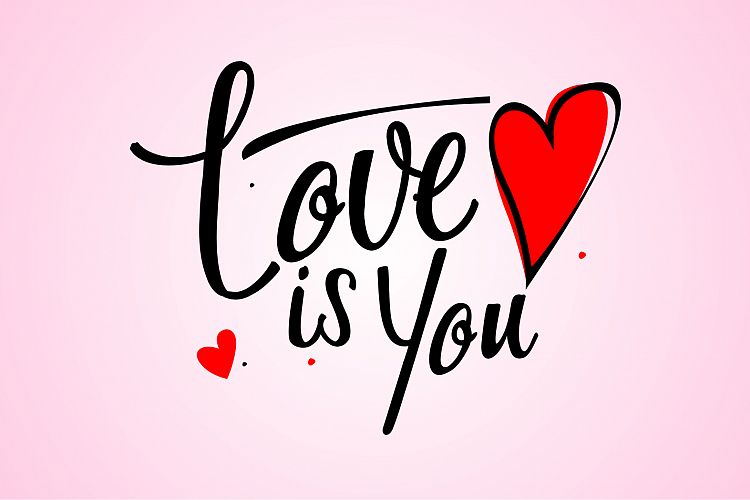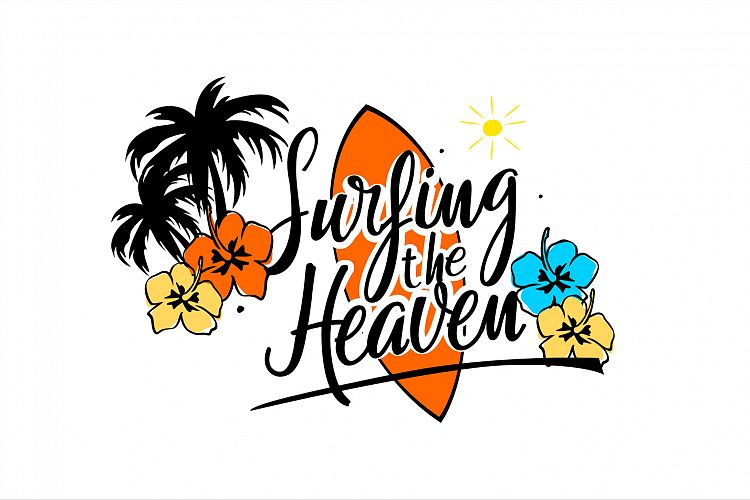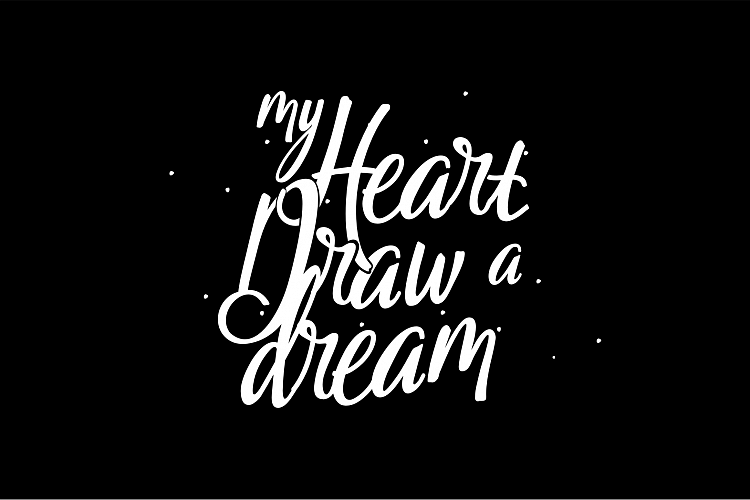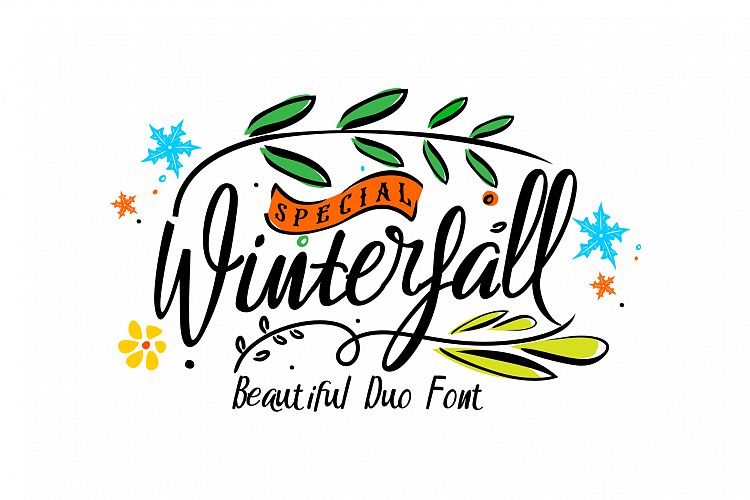
Winterfall Handlettring Font
Winterfall is handlettring font specifically designed with a variety of alternate, ideal for posters, t shirts, typography, writing etc.